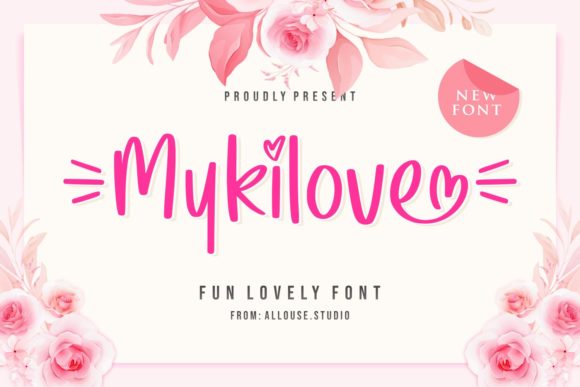
In a world where numbers hold significance and emotions run deep, there exists a font that flawlessly captures the essence of individuality and personal expression: Mykilove Font. A creation of allouse.studio, this captivating display font invites you to immerse yourself in a realm of creativity, unlocking the doors to stunning designs that speak volumes.
Mykilove Font is not merely a collection of letters and symbols; it's an artistic masterpiece that awakens the senses and ignites the imagination. Its bold, chunky letters exude a sense of warmth and playfulness, making them the perfect choice for designs that aim to connect with audiences on a personal level. Unleash your inner artist and transform ordinary words into captivating visual statements that resonate with your unique style.
Picture this: a number tattoo that tells a story, a tale etched in ink on your skin. With Mykilove Font, the possibilities are endless. Let your creativity soar as you design a tattoo that reflects your passions, aspirations, and life's journey. Each stroke of the pen or needle becomes a brushstroke, painting a picture that speaks louder than words.
Mykilove Font is not just for tattoo enthusiasts; it's a versatile font that lends its charm to a wide range of artistic endeavors. Whether you're designing posters, flyers, social media graphics, or website banners, Mykilove Font will add a touch of whimsy and originality to your creations. Its youthful spirit and eye-catching style will make your designs stand out from the crowd, leaving a lasting impression on your audience.
So, dive into the world of Mykilove Font and embark on a creative adventure. Discover the joy of expressing yourself through art and design, and let your imagination run wild. With Mykilove Font as your creative companion, you'll unleash a torrent of inspiration and create designs that captivate, inspire, and leave an indelible mark on the hearts of those who encounter them.